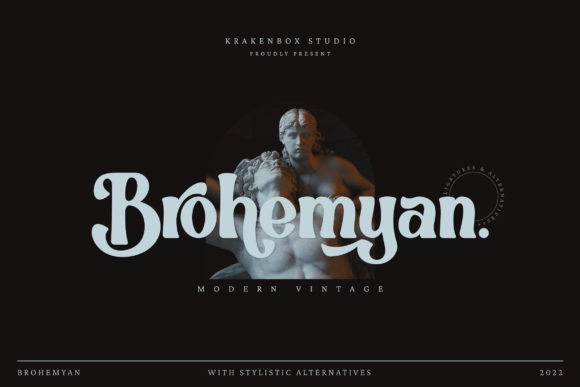
The Brohemyan Font: A Vintage Dream for Designers
I’ll never forget the struggle I faced while working on a fashion brand’s logo design project. My client wanted a font that exuded luxury, sophistication, and a touch of vintage charm. I scoured the internet, tried countless fonts, but nothing seemed to fit the bill. That was until I stumbled upon the Brohemyan font. ✨
This gorgeous, vintage-styled display font has been a game-changer for me, and I’m excited to share my experience with you. In this article, we’ll dive into the world of Brohemyan, exploring its features, uses, and some helpful tips on how to make the most of it.
- 💃 Elegant and sophisticated design, perfect for fashion, luxury brands, and high-end projects
- 📚 PUA encoded, making it easy to access all glyphs and swashes
- 🎨 Highly versatile, suitable for various design projects, including logos, branding, magazines, social media, and advertisements
- 👍 Great for creating eye-catching titles, headings, and signatures
While Brohemyan is an amazing font, there are a few things to keep in mind: 🤔
- ⚠️ Some users may find the font a bit too ornate or over-the-top for certain projects
- ⚠️ May not be the best choice for body text or long-form content due to its display font nature
The Story Behind Brohemyan
Brohemyan was inspired by the works of legendary designers from the early 20th century. Its creator aimed to craft a font that would evoke the luxury and glamour of a bygone era. With its intricate details and elegant lines, Brohemyan is a true masterpiece. 🎨
A: PUA (Private Use Area) encoding allows you to access a wide range of glyphs and swashes, making it easier to customize your text and add unique touches to your designs.
Q: Is Brohemyan a script font?
A: While Brohemyan has some script-like elements, it’s primarily a display font with a mix of serif and decorative features.
Q: Can I use Brohemyan for body text?
A: While possible, Brohemyan is not ideal for body text due to its display font nature. It’s best suited for headings, titles, and short-form content.